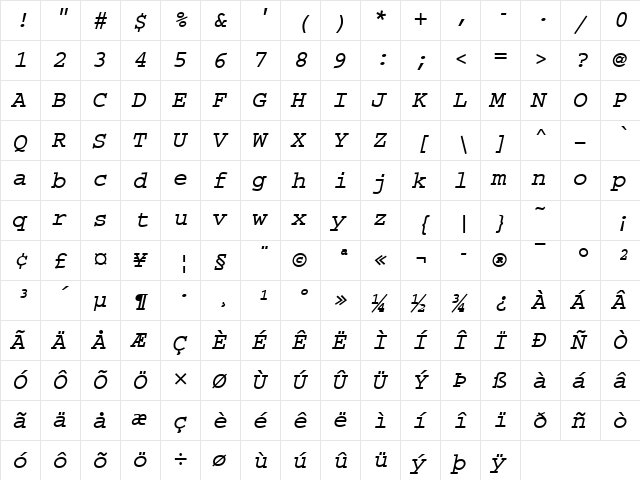
Courier Becker Bold Oblique Font Preview
Design Context for Courier Becker Typeface
Courier Becker uses fixed-width spacing throughout, giving it the structured, systematic character associated with coding environments and technical documentation. The slanted form adds forward momentum and visual energy. Its bold stroke weight gives it real presence on the page.